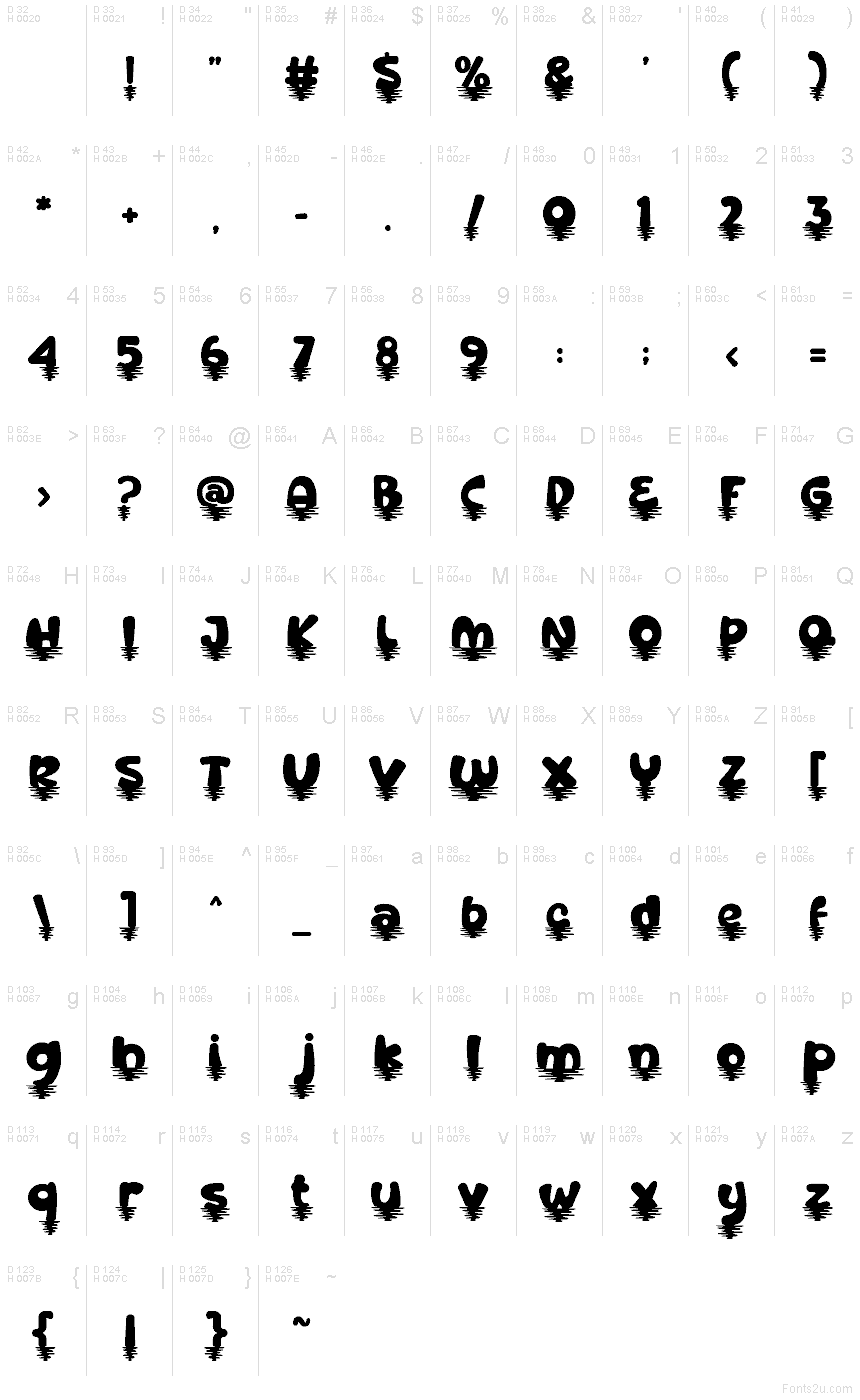
Sandy Toes Sea
Sandy Toes Sea font by PutraCetol Studio is a display typeface with an authentic beach vibe. Its bold letters and playful wave elements evoke a relaxed, coastal atmosphere, transporting your audience to thoughts of sunny shores. The font’s shape and style are summer-themed at heart, offering you the perfect design ingredient for seaside projects.
Free decorative fonts aren’t always associated with specific themes but Sandy Toes turns out to be ideal for wearing tees or tote bags on all your travels. It can also become part of hotel logos, coffee shops menus, invitation cards for birthday parties or events held near the beach. Try it on stationery as well to see its summer wonders!